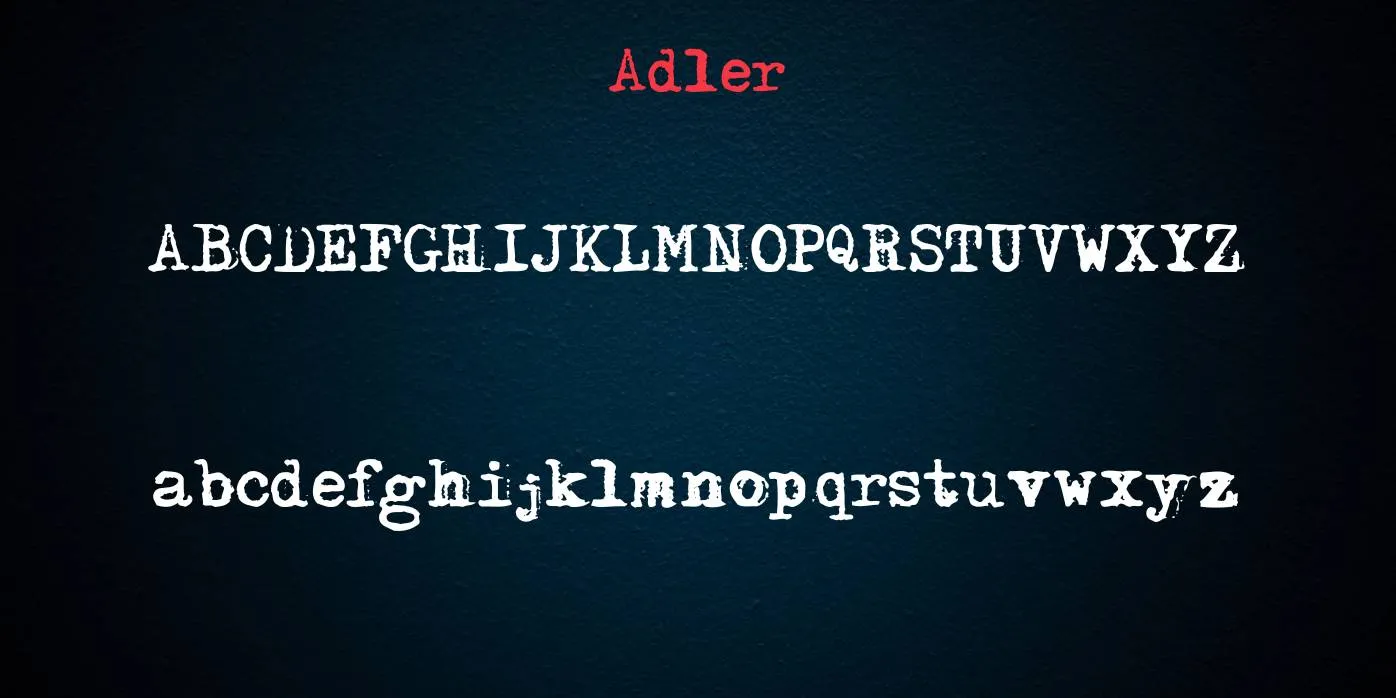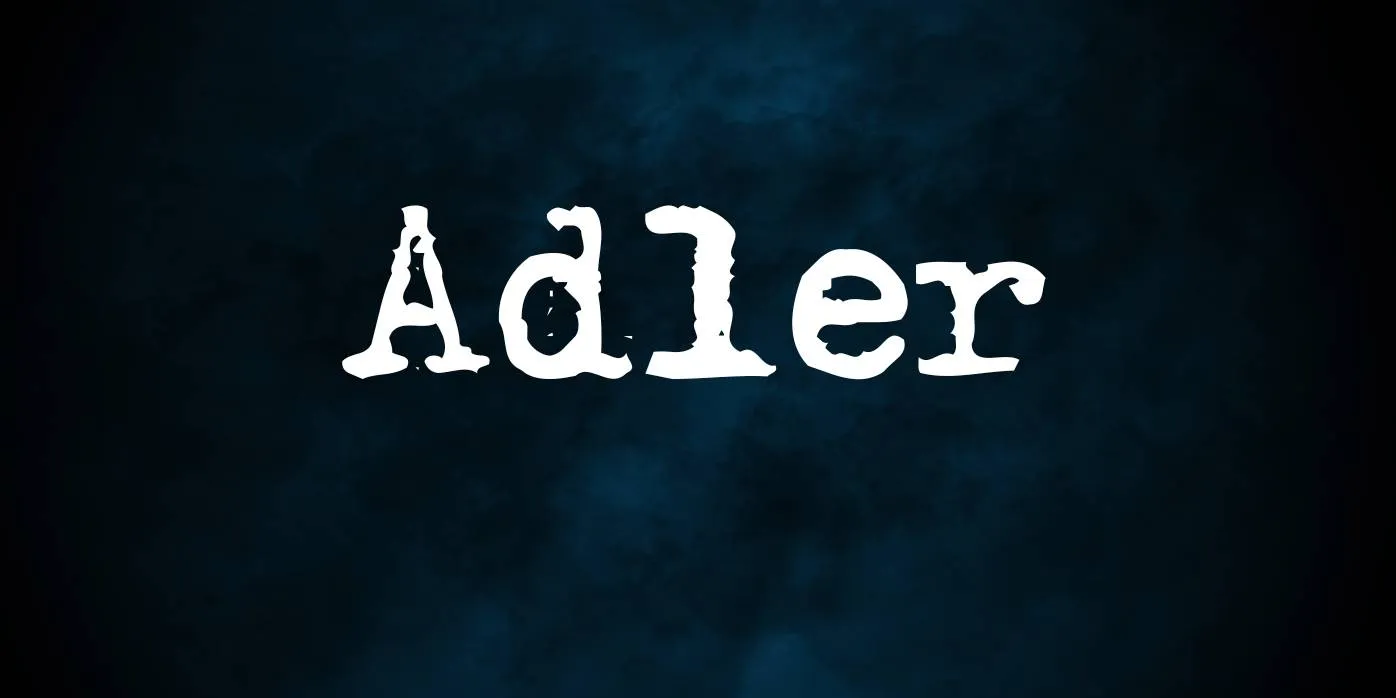
Adler Font
Introducing very amazing and fancy Adler Font. It is a very unique and interesting font. It was designed by Carini Type Foundry. Its look is similar to the fonts used for horror movies.
It contains 266 characters, 91 glyphs, and 1000 units per Em. Embedding rights are allowed for the permanent installation of this font. Its weight and width are medium (normal). Its character’s style is not filled and the height of each character is not the same which gives a scary look.
Usage You can use this font to make so many projects. It gives a horror look as its characters are not filled properly or are incomplete in writing. This typeface has characters, symbols, number, symbols, small letters, capital letters, and special characters which is suitable for creating any project. It can be printed on T-shirts to give an attractive look.
Different types of banners, posters, flyers, and titles can be made using this font. For business or commercial purposes, you can make scary book covers,¬† graphic designing, and attractive magazine covers. Horror quotes, game titles, kid’s bags, and other kids-related items can also be made using this font. It is considered a good font for both printing and digital media.
It is useful to design all types of printing and display purposes. It can make titles, book covers, scary book story covers and much more.